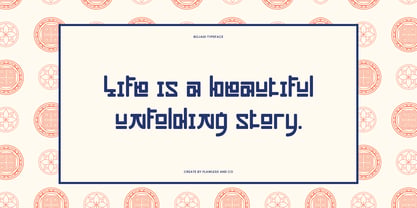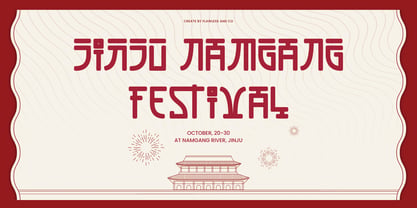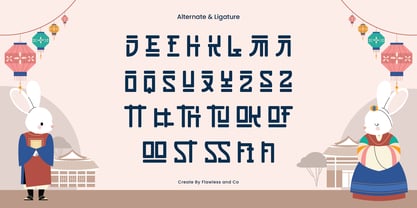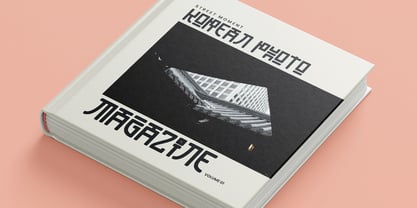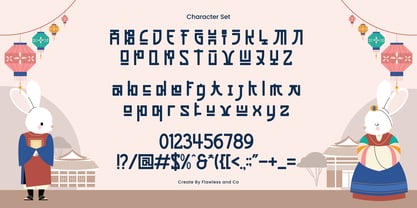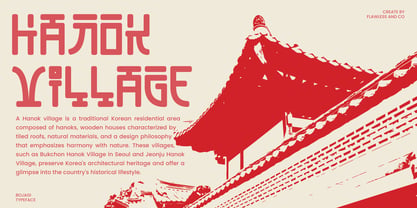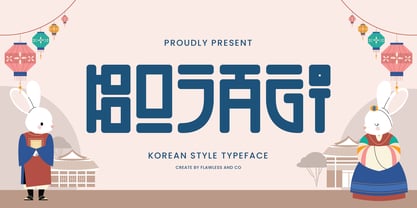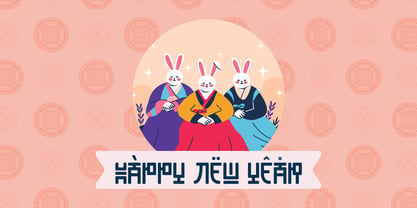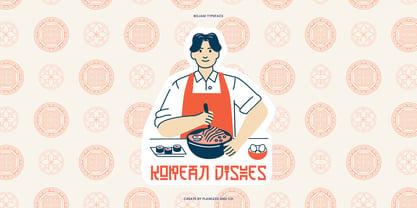
Bojagi
por Flawlessandco
La familia tipográfica Bojagi fue diseñada por Achmad Yani y publicada por Flawlessandco. Bojagi contiene 1 estilos. Más información sobre esta familia
BOJAGI is a unique and charming Korean-style typeface inspired by traditional Hangul forms and Korean cultural aesthetics. With its soft, rounded shapes and geometric construction, BOJAGI captures the spirit of Korean heritage while maintaining a modern, approachable vibe. Perfectly balancing tradition and playfulness, BOJAGI is great for designs that want to celebrate Asian themes, cultural storytelling, or simply bring something fresh and distinctive into the layout. Whether you're designing a food packaging, children’s book, or cultural branding, BOJAGI will instantly elevate your message with personality and charm.
Features :
Multilingual, Uppercase alphabet A-Z, Lowercase alphabet a-z, Numbers 0-9, Some punctuation, Alternates & Ligatures
Diseñadores: Achmad Yani
Fundición: Flawlessandco